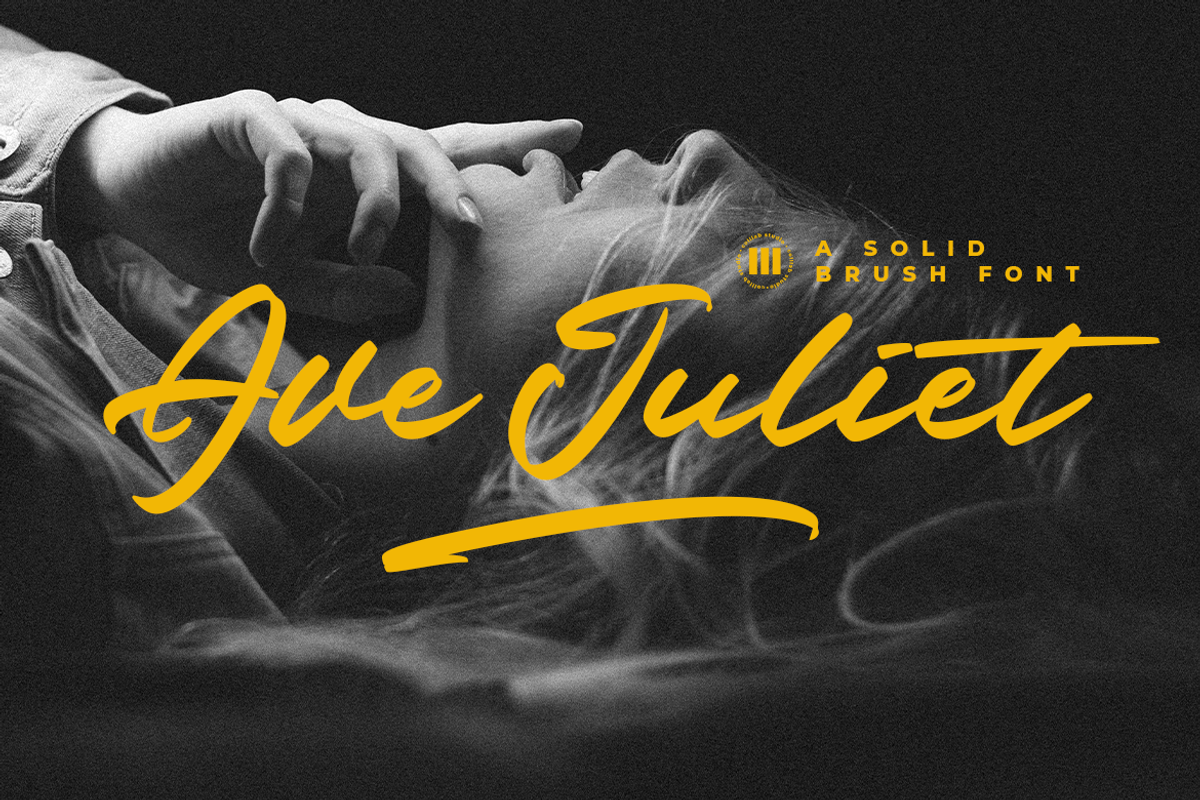
Ave Juliet | A Solid Brush Font Free Download
Ave Juliet | A Solid Brush Font Free Download is a bold and expressive script typeface designed to bring raw energy and a handcrafted feel to your designs. With its thick, sweeping brushstrokes and dynamic personality, this font is perfect for headlines, posters, branding, packaging, and social media content that needs a strong visual impact.
Its solid brush style gives your typography a bold, artistic edge, making it ideal for designs that need to stand out with power and creativity. Whether you're working on a music poster, a custom logo, or a fun product label, Ave Juliet delivers a unique, handmade vibe to every project.
Designers love Ave Juliet for its versatility, boldness, and ability to make an impression across both print and digital formats. Ready to add a bit of brushstroke artistry to your designs? Download Ave Juliet | A Solid Brush Font Free Download and make your typography speak with strength.